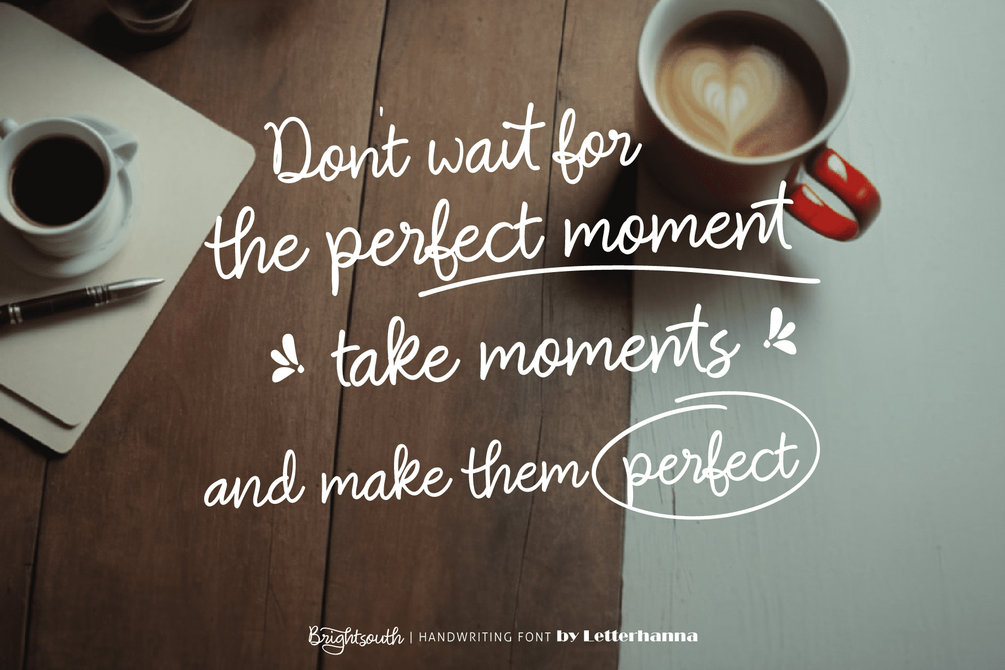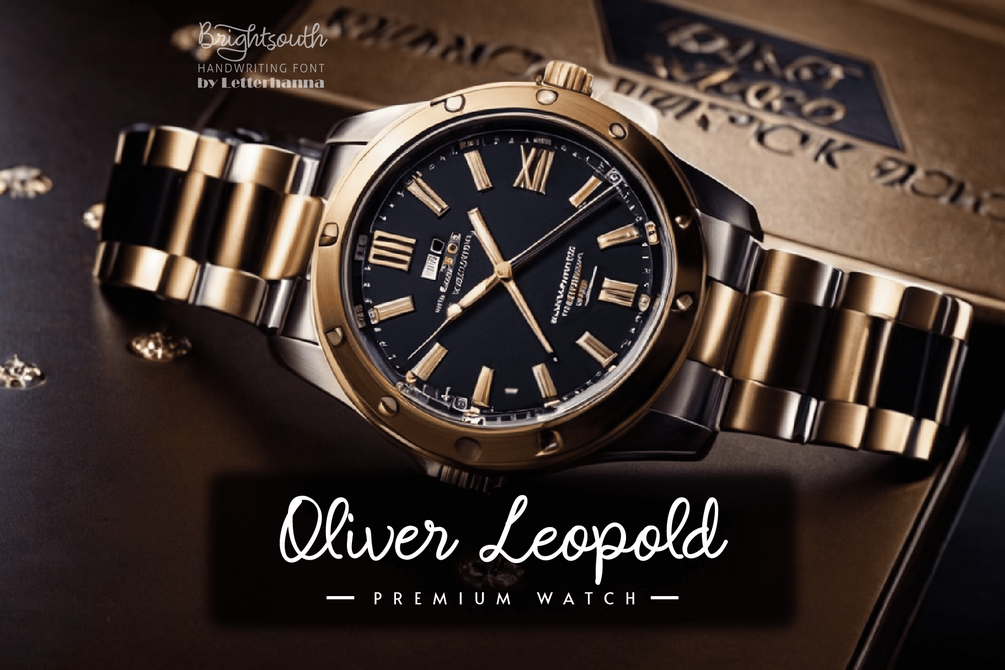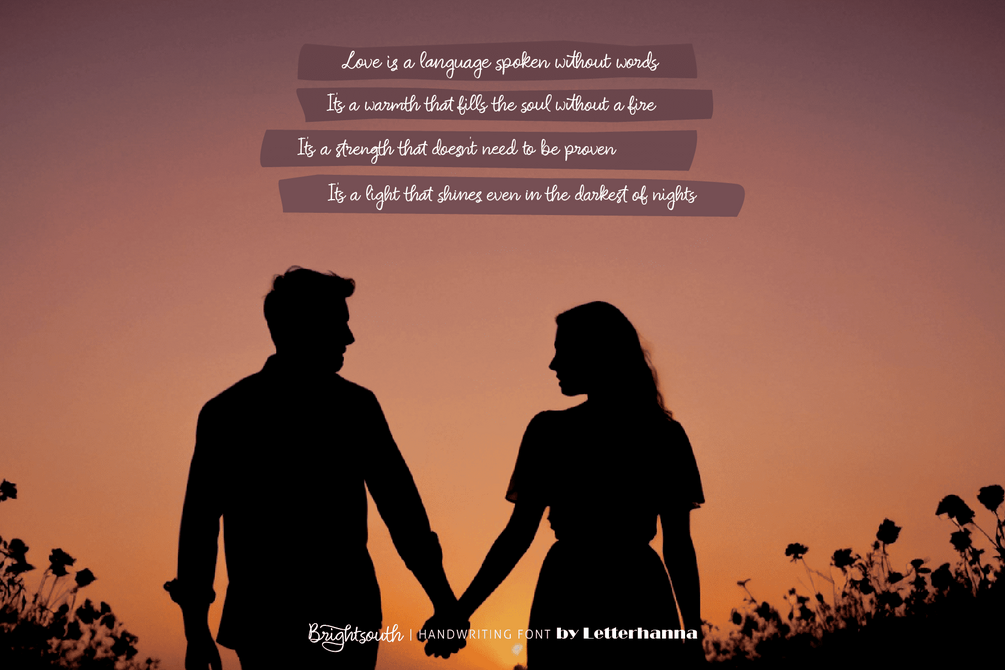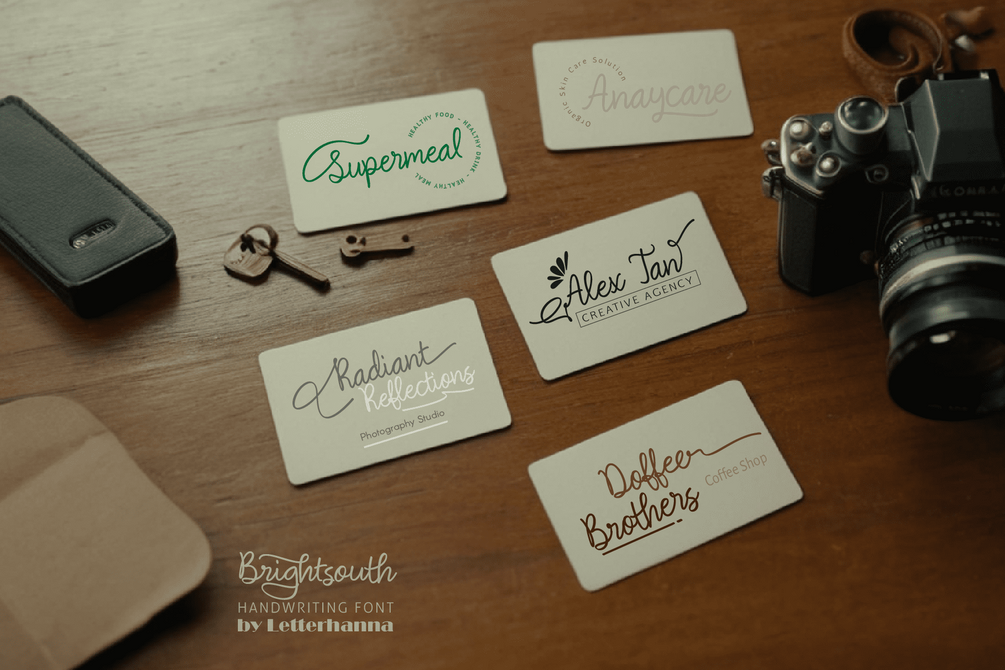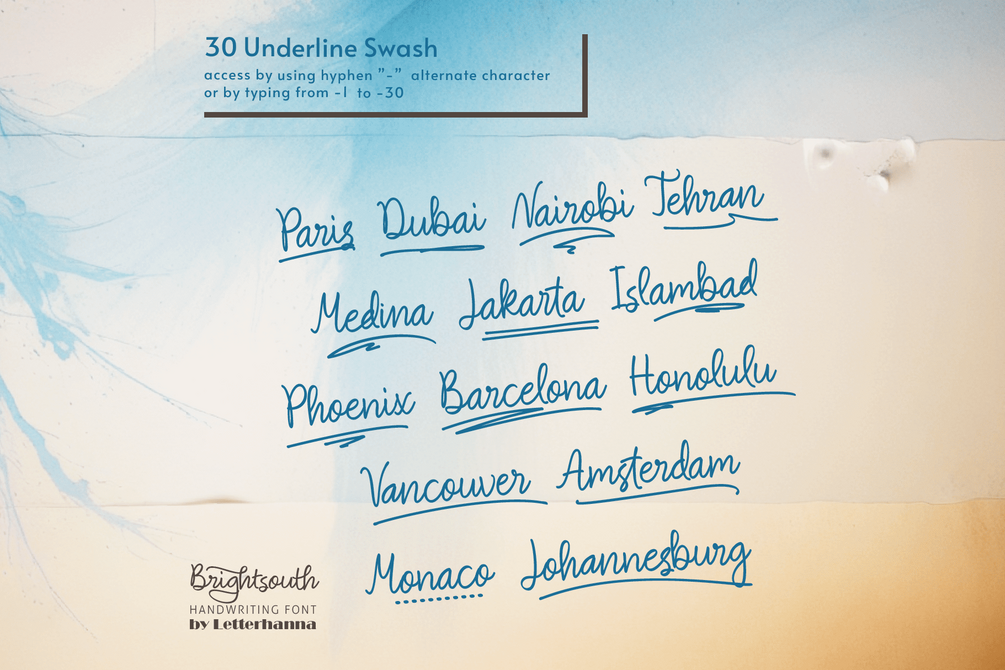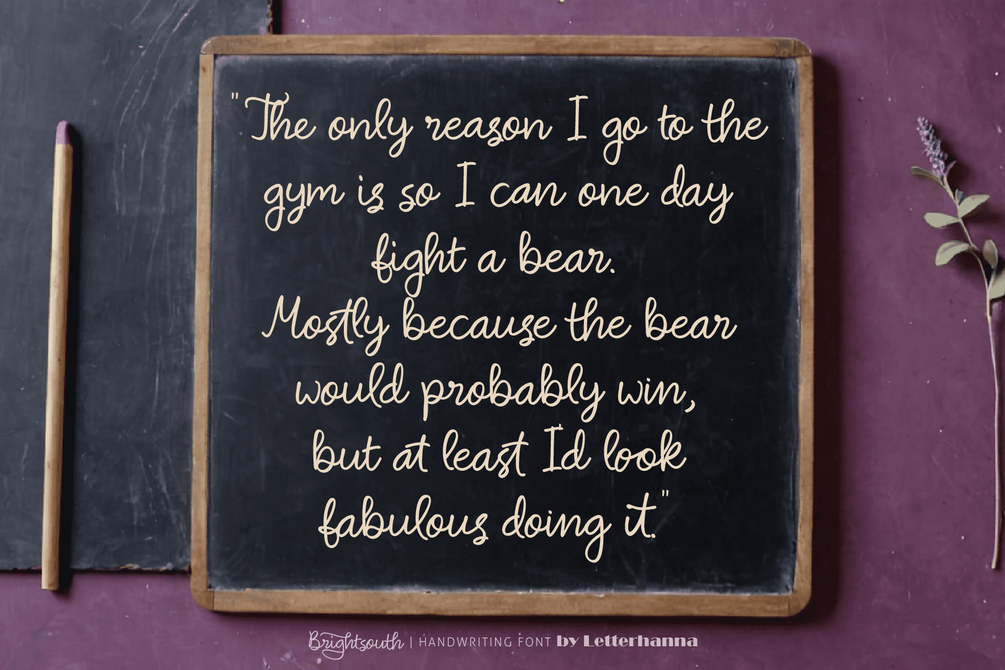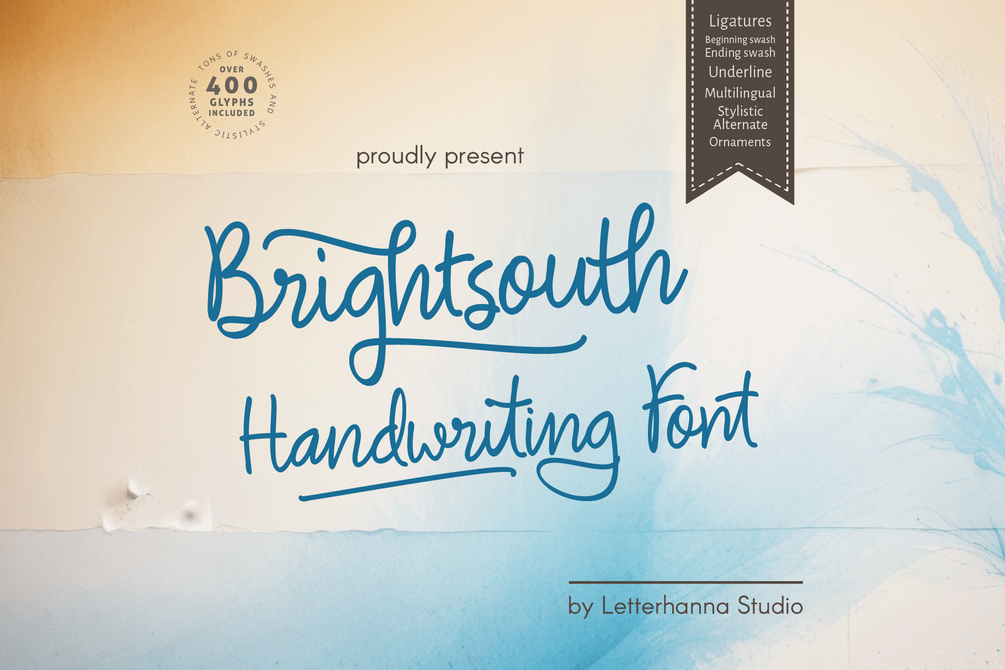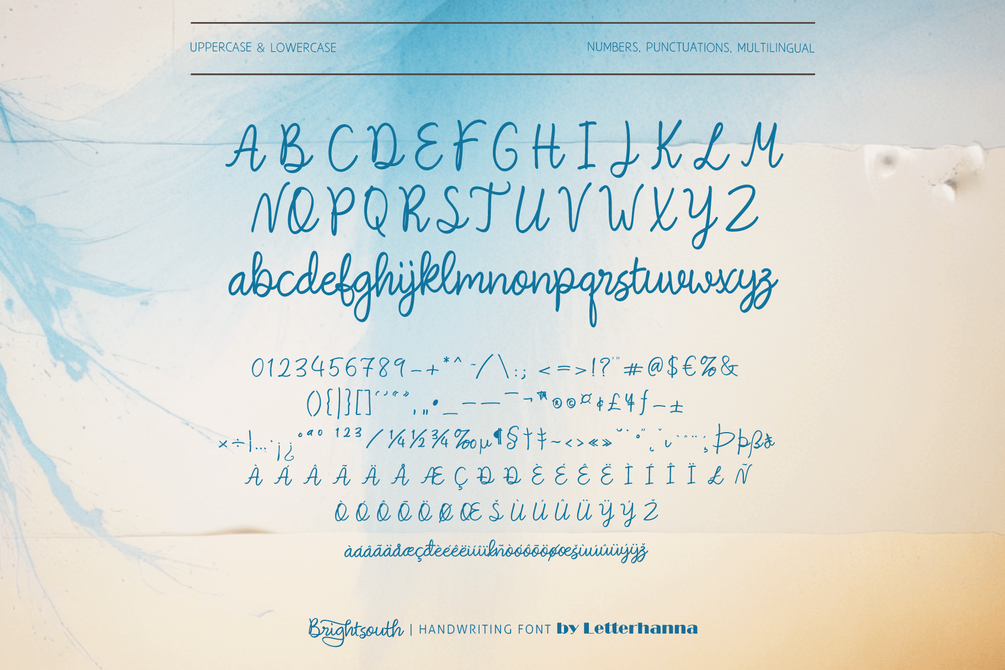
Brightsouth Free Font
Introducing Brightsouth, a bold and dazzling script font ready to light up your designs! Brightsouth isn't your average handwriting font. It bursts with personality, offering a treasure trove of stylistic alternates, swashes, and ligatures.
These playful extras allow you to add a unique touch to your projects, from branding and logos to invitations and social media graphics. Buckle up and get ready to create designs that truly stand out with Brightsouth's bold confidence and playful charm
Accessing Stylistic Alternates
Stylistic alternates can be accessed by typing a plus symbol "+" in front of the original letter. For example, type "+a" to get the stylistic alternate of the letter a.
• Uppercase and lowercase letters
• Numbers and punctuation marks
• Multilingual support
• Ligatures
• Beginning and ending swashes
• Underline swashes
• Stylistic alternates
• Ornaments
• Easy access to swashes using ligatures